Old English Font Generator
"Old English" almost always means blackletter/gothic lettering in search intent, not the historical Old English language. Unicode's Fraktur block is the standard stand-in every generator uses for this look.
Bold Gothic reads closest to traditional Old English lettering (think tattoo lettering or a medieval-style logo); plain Gothic is lighter and works better for longer text.
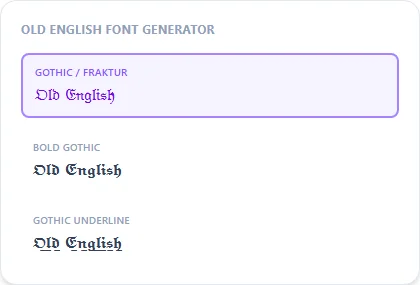
'Old English' as a search term vs. the historical language
Historically, Old English refers to the Anglo-Saxon language spoken before roughly 1150, completely unreadable to modern English speakers. Almost everyone searching 'Old English font' actually means blackletter/gothic lettering, the heavy angular script used in medieval manuscripts and still associated with tattoos, metal logos, and vintage newspaper mastheads today. This generator produces that lettering style, not a translation into the historical language.
Bold Gothic vs. plain Gothic
Bold Gothic (Bold Fraktur) has thicker strokes that hold up better at tattoo or logo scale and in small bio text. Plain Gothic is lighter and more detailed, better suited to longer passages where heavier strokes would start to blur together.
Is this the actual Old English language?
No — it's a modern gothic/blackletter lettering style, the same visual reference most tattoo lettering and old-style logos use. The letters are still standard English.
Why don't numbers change style here?
The Fraktur Unicode block doesn't define a separate digit set, so numbers pass through unstyled — this is a Unicode limitation, not a bug.
Which style is closest to a gothic tattoo lettering reference?
Bold Gothic is the closest match; hand it to your tattoo artist as a visual reference rather than a final design, since Unicode glyphs aren't built for skin-scale linework.
Is this the same as the gothic font generator page?
Same underlying Fraktur styles — this page speaks to the 'Old English' search phrasing specifically, while the gothic page frames it as the broader blackletter style.